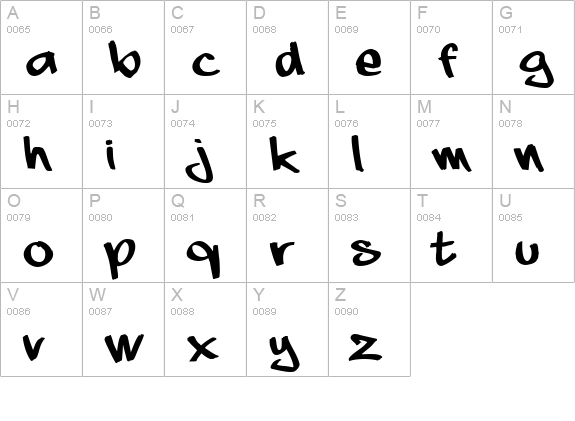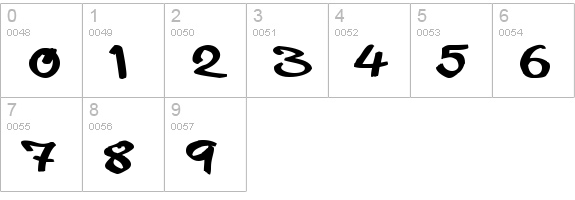
aaaiight! Font Details
Introducing the vibrant and energetic aaaiight! font - a modern and playful display typeface that exudes a sense of fun and creativity. This font is perfect for adding a touch of youthful charm to your designs, whether for posters, logos, social media graphics, or any other project that calls for a bold and eye-catching look. The aaaiight! font features quirky letterforms with a unique hand-drawn style, giving your text a distinctive character that is sure to stand out. Its versatility allows it to be used for a variety of design purposes, from branding to packaging and everything in between. Best of all, aaaiight! font is completely free to download at FontsMarket.com, making it accessible to designers of all levels looking to add a touch of whimsy to their work. Don't miss out on this opportunity to enhance your designs with this one-of-a-kind typeface that will surely leave a lasting impression.